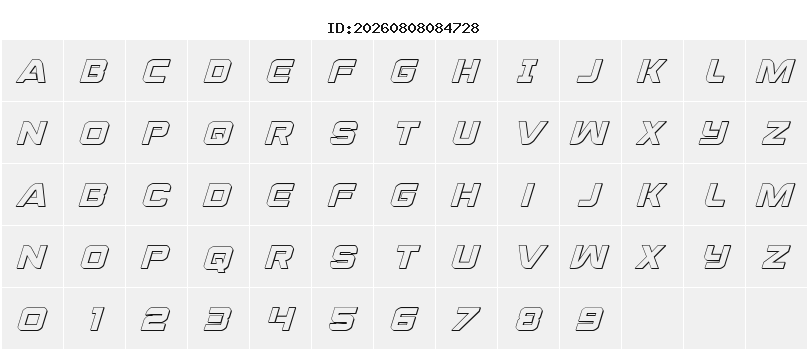
Praetorian 3D Italic Preview
• Font Name: Praetorian 3D Italic
• Full Font Name: Praetorian 3D Italic
About Praetorian 3D Italic.ttf
Praetorian 3D Italic.ttf is a modern, elegant sans-serif font designed for ultimate readability and visual harmony. Perfect for branding, headlines, web design, and print materials.